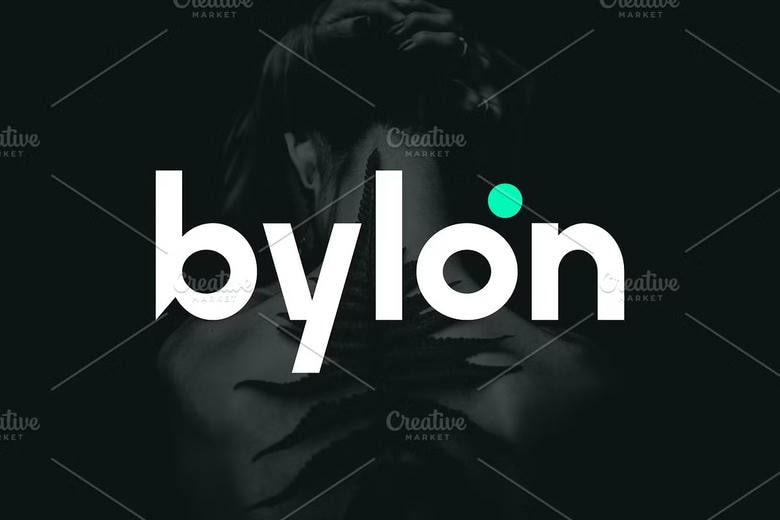
Bylon Font
Bylon is a modern and clean sans-serif logo font typeface produced by Iwan Alwan for today’s logo and simple logo designs. Due to its clean and balanced letter forms Bylon is suitable for logos, business cards, and other digital applications.
With the options of multilingual support, appropriate ligatures, as well as additional assorted glyphs, Bylon can add fluidity to the typeface while maintaining true highlights and solid shape for various application in any design field.
Bylon Sans Serif Font